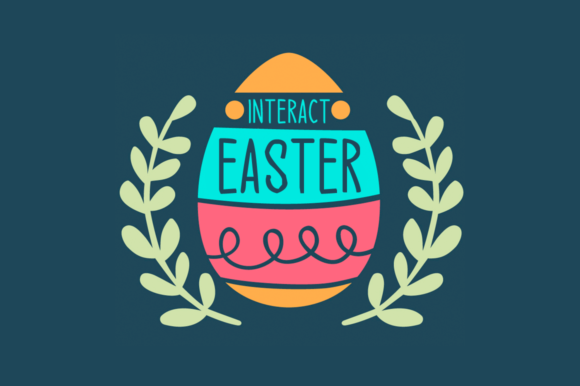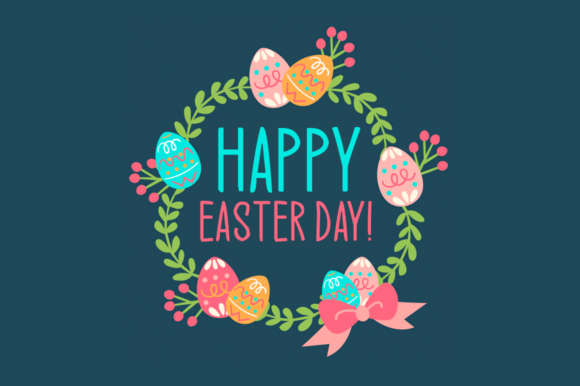
Introduction to Present Easter Font
Present Easter is a sweet and casual display font with an undeniably clean feel.
Use it to add that special charming touch to any design idea you can think of .
Key Features of Present Easter Font